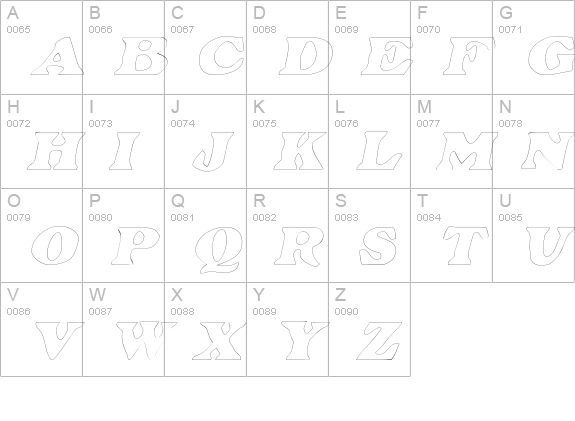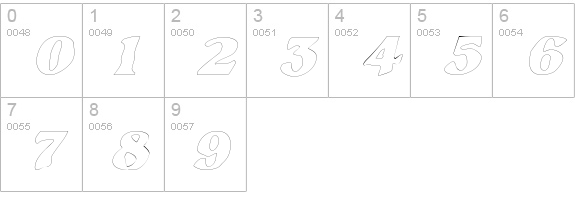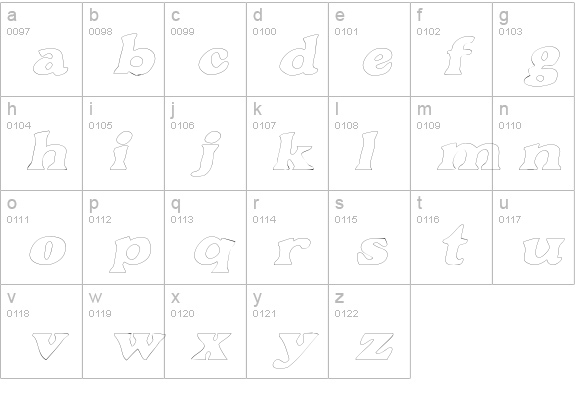
GrantOutline Oblique Font Details
GrantOutline Oblique is a distinctive, italic variant in the GrantOutline typeface family \xE2\x80\x94 well suited to design and typography projects.
GrantOutline Oblique font is a stylish and modern typeface that adds a touch of elegance to any design project. Its sleek lines and unique angles make it perfect for headings, titles, and other display purposes. The oblique style adds a dynamic flair to the text, giving it a sense of movement and energy. What sets GrantOutline Oblique font apart is that it is available for free download at FontsMarket.com. This means you can easily access this high-quality font to enhance your creative projects without any cost. Whether you're designing a website, creating posters, or crafting a logo, GrantOutline Oblique font is sure to make a bold statement and leave a lasting impression. Unlock your creativity with this versatile and eye-catching font today!